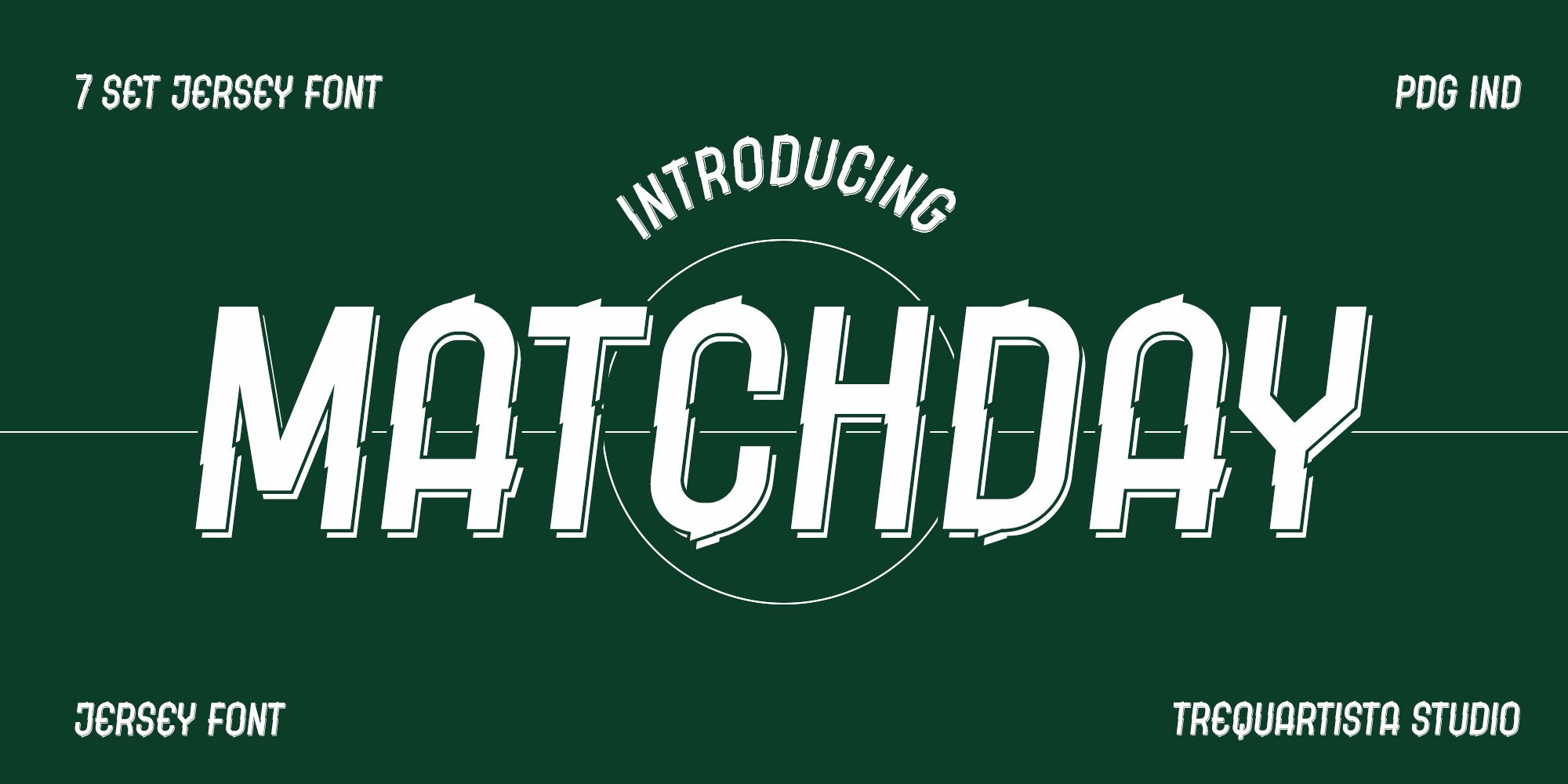
Matchday – Techno Sport Font
Matchday – Techno Sport Font is a bold athletic display font inspired by classic sports jerseys. With its powerful letterforms and dynamic personality, it’s perfect for jerseys, team logos, branding, apparel, posters, and any project that needs a strong sporting identity.